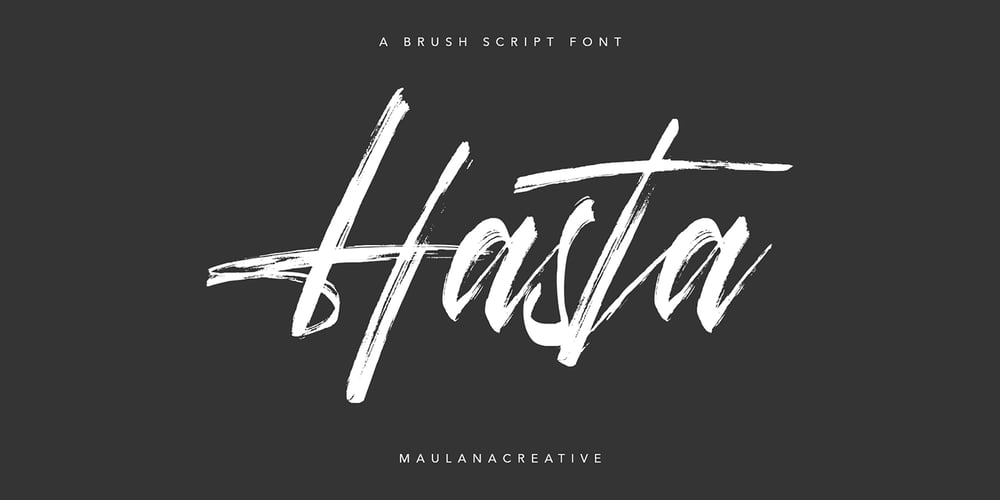
Hasta
Hasta font
Hasta Font Family was designed by Gilang Maulana and published by Maulana Creative. Hasta contains 1 styles and family package options. Hasta Brush Script FontGive your designs an authentic handcrafted feel. “Hasta Brush” is perfectly suited to signature, stationery, logo, typography quotes, magazine or book cover, website header, clothing, branding, packaging design and more.Thanks for use this font ~ Maulana